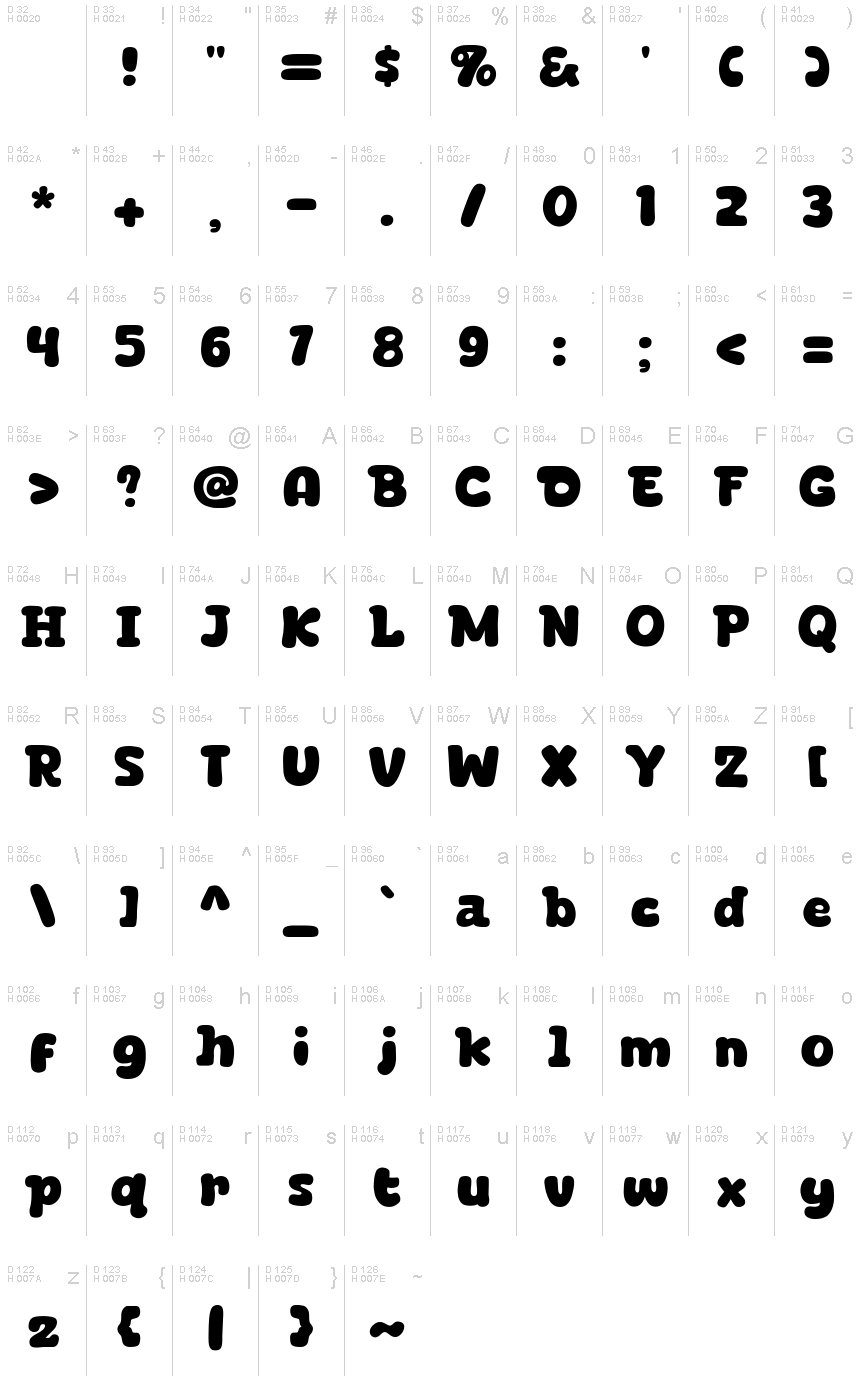
Dogways
Dogways, designed by Khurasan, is a playful and dynamic display font that exudes the whimsy and fun of a cartoon. Its bold, rounded letters dance with an infectious energy that seems to leap off the page. This font's charming curves and bouncy rhythm give it a friendly and approachable character, making it perfect for projects that aim to delight and engage.
Ideal for children's books, party invitations, or any design where a touch of lightheartedness is desired, Dogways brings an element of joy to logos, headlines, and casual typographic compositions. It's the go-to choice when your design needs both personality and readability in a uniquely animated style.